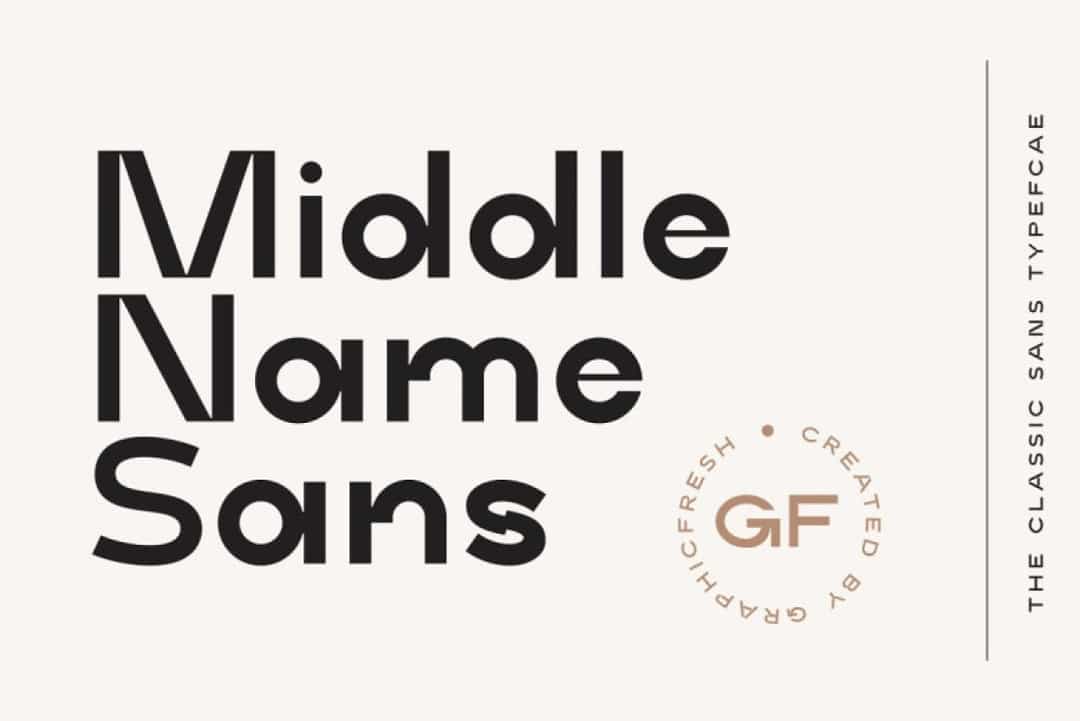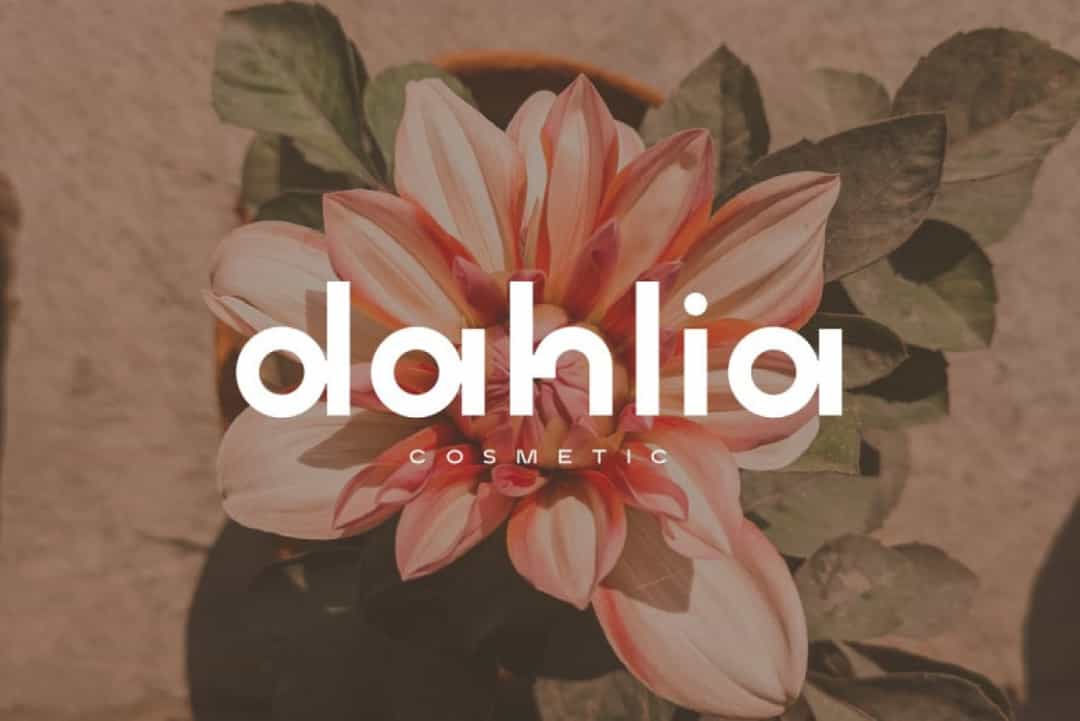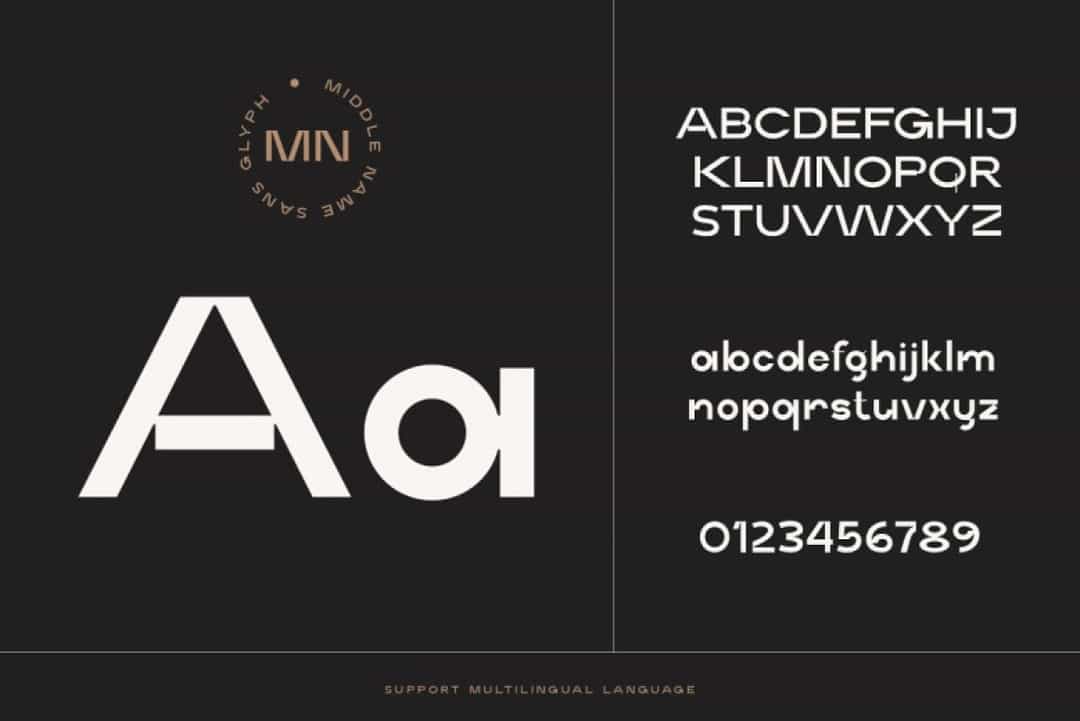
Middle Name Sans is a geometrically styled font designed with geometric symmetry. However, its design stands out from most sans-type fonts in that its unique style blends contemporary styles. We have added an old-fashioned touch for an additional nostalgic element.